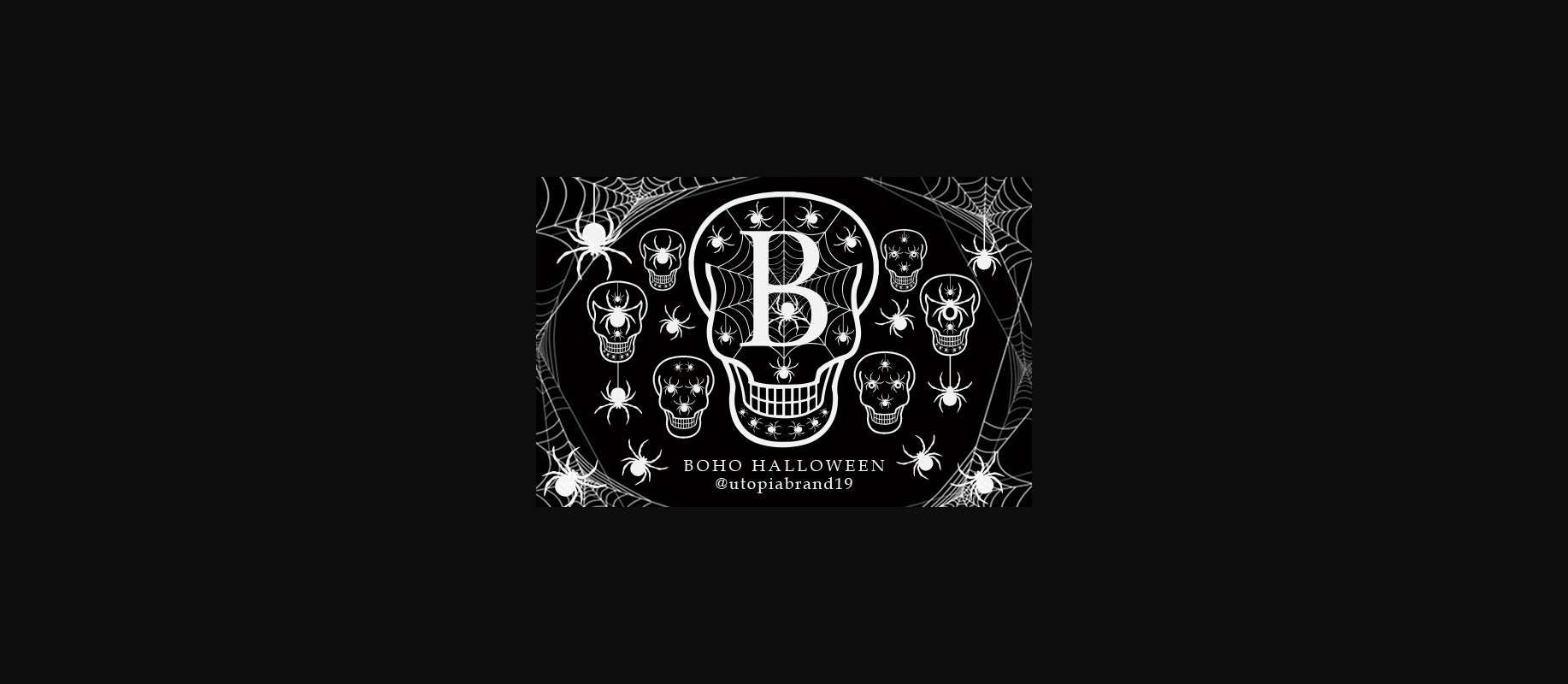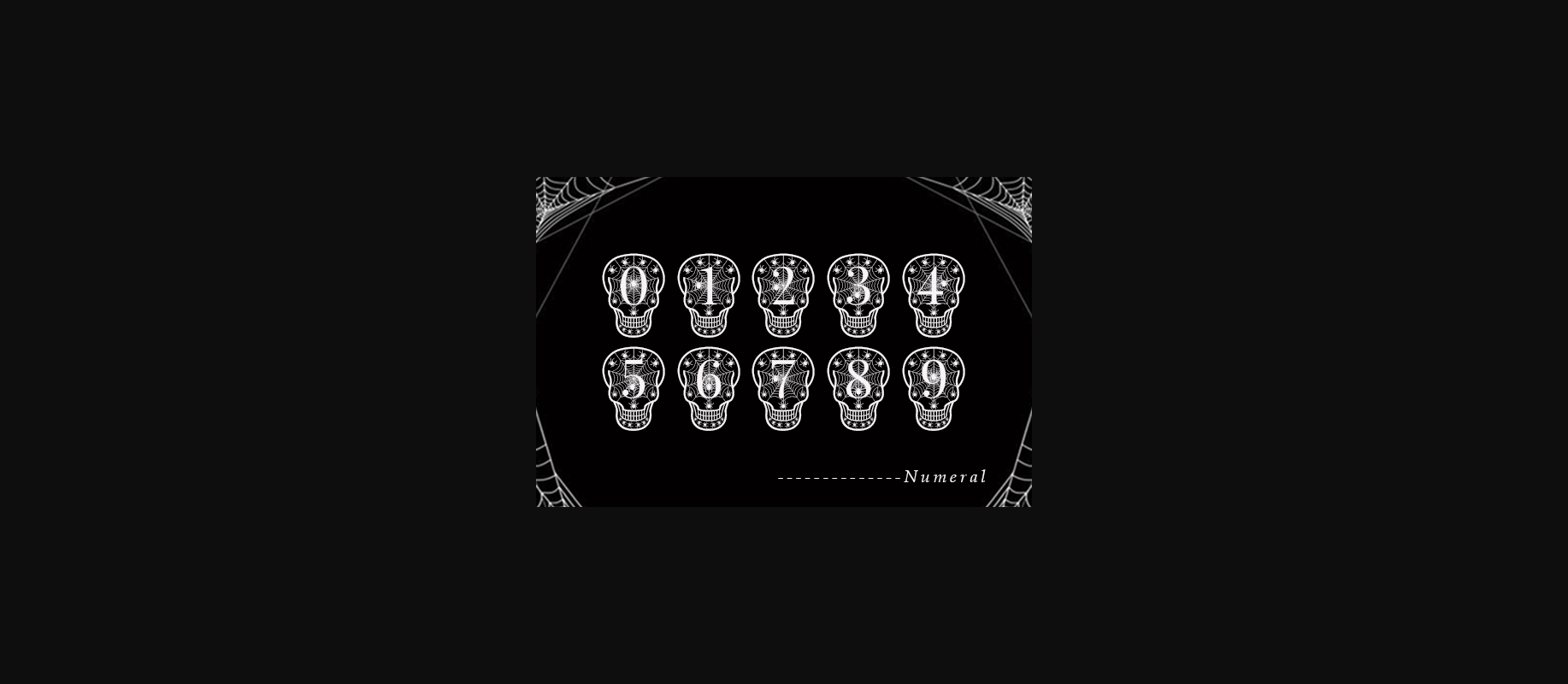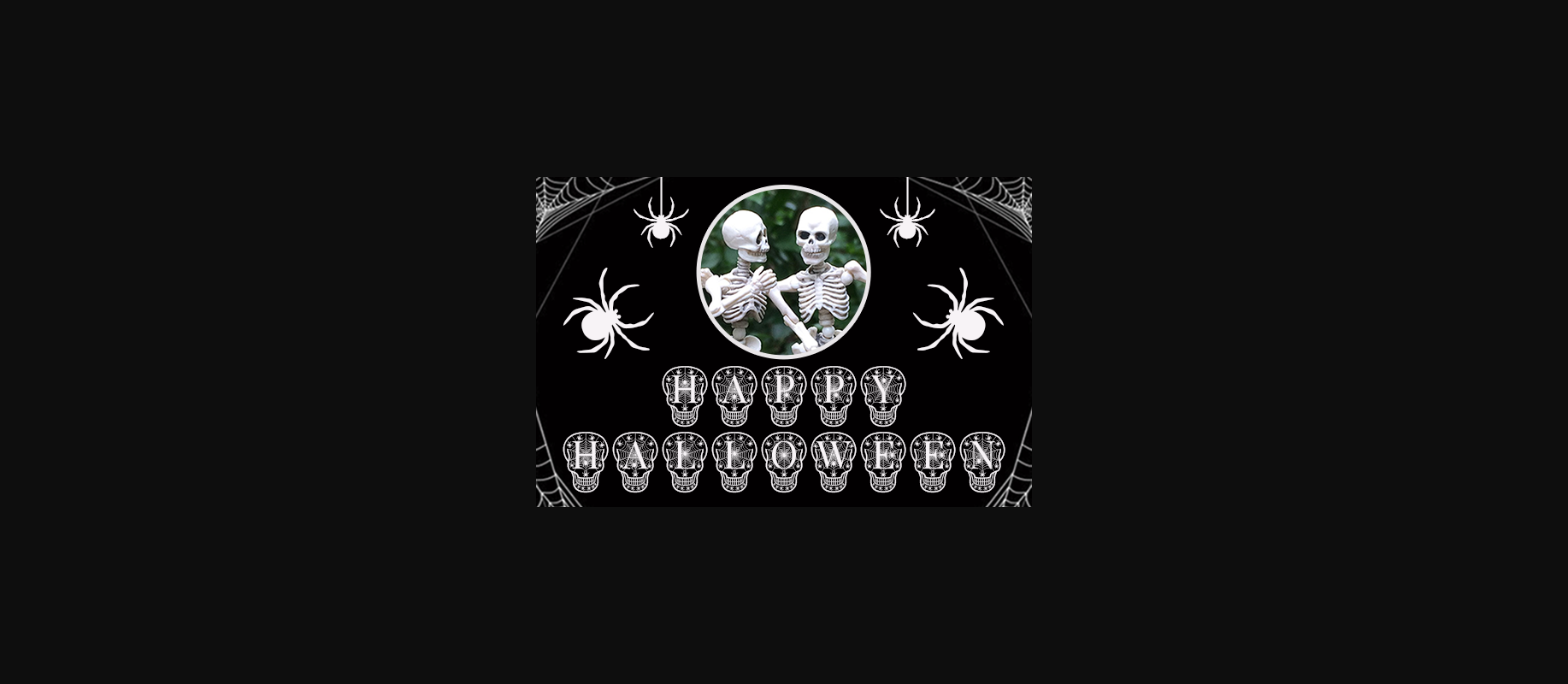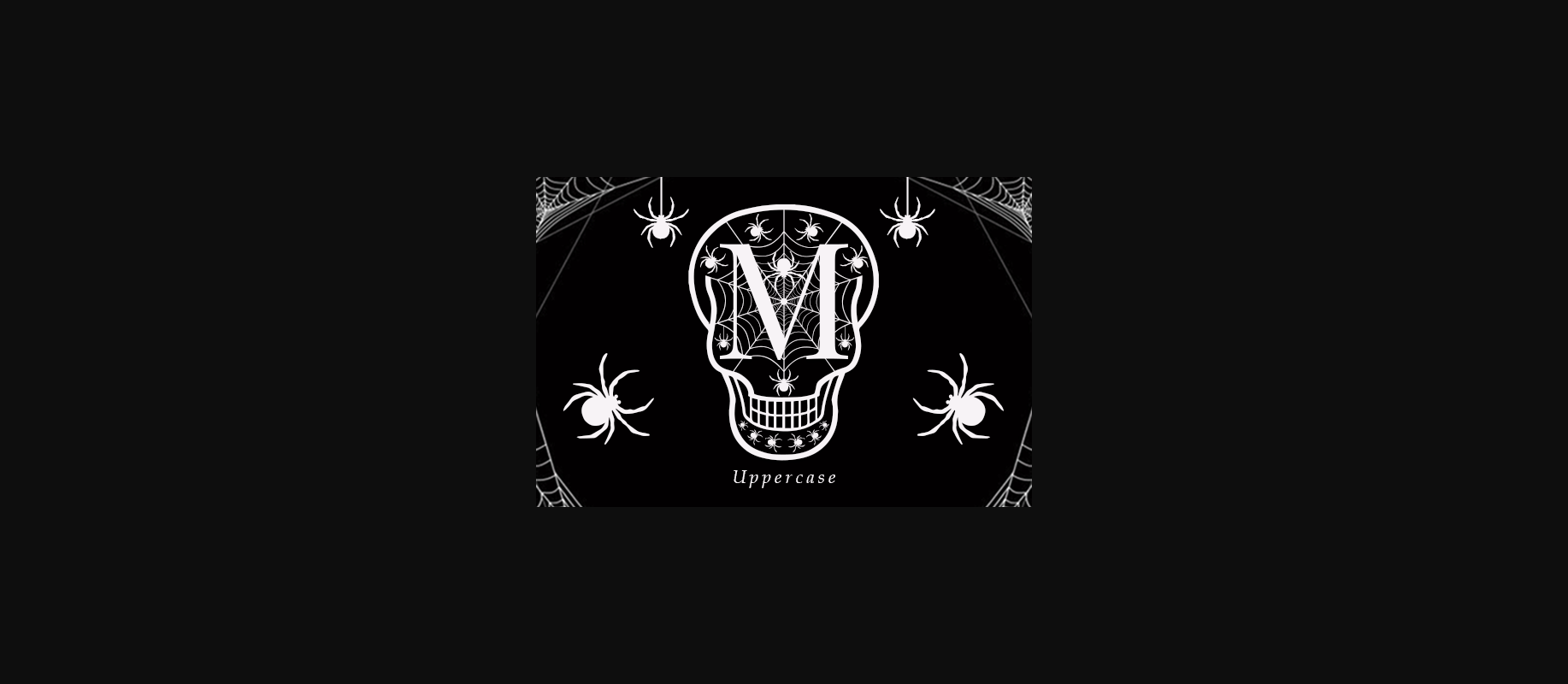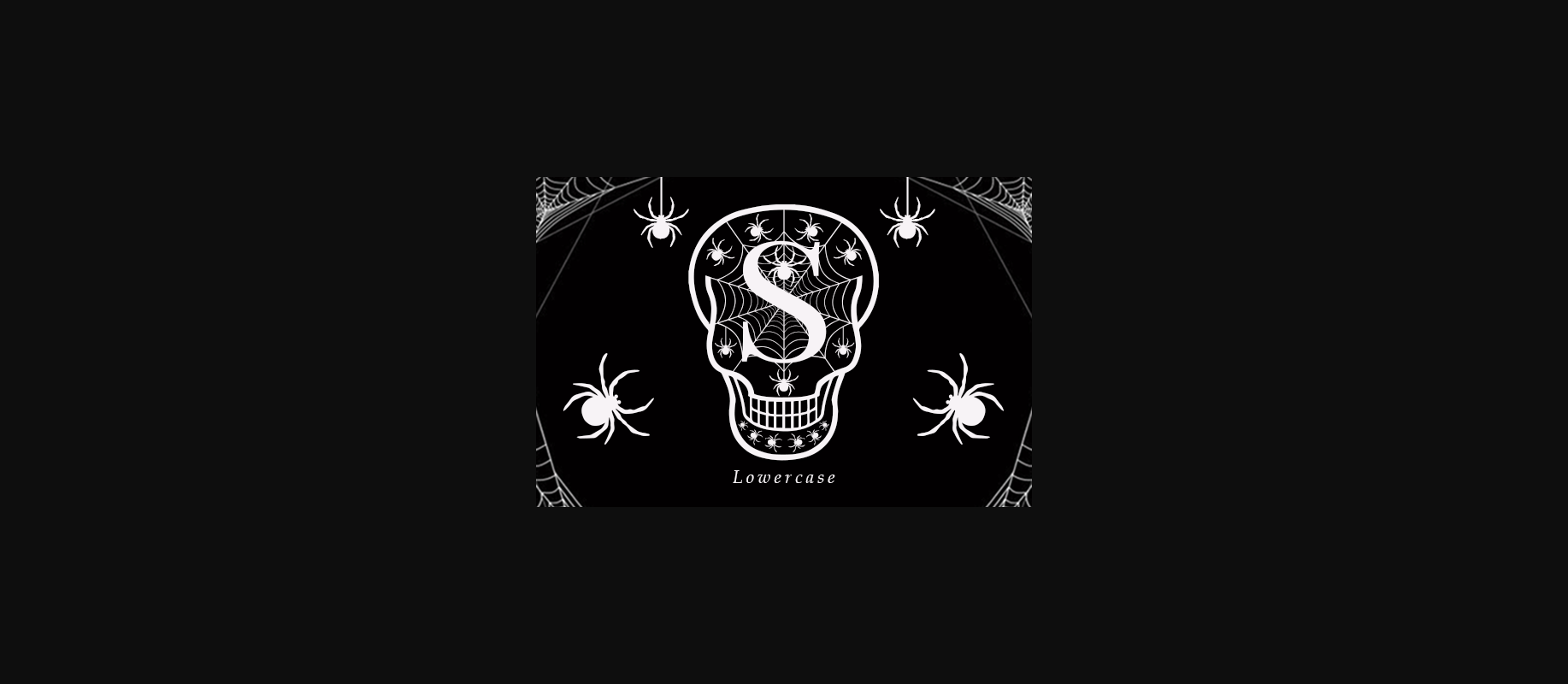
Boho Halloween Font
About Boho Halloween Font
Boho Halloween is a spooky decorative font. Get inspired by its incredibly fun feel and use it to create creepy designs. This font is PUA encoded which means you can access all glyphs and swashes with ease!